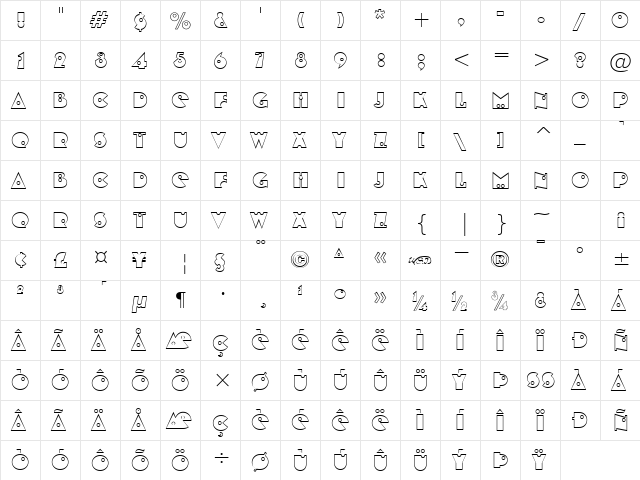
ShotShell Open Regular Font Preview
ShotShell Open Regular
ShotShell Open Regular Font Details
Design Context for ShotShell Open Typeface
ShotShell Open is a composed and adaptable typeface that performs quietly and consistently across a wide range of design contexts.